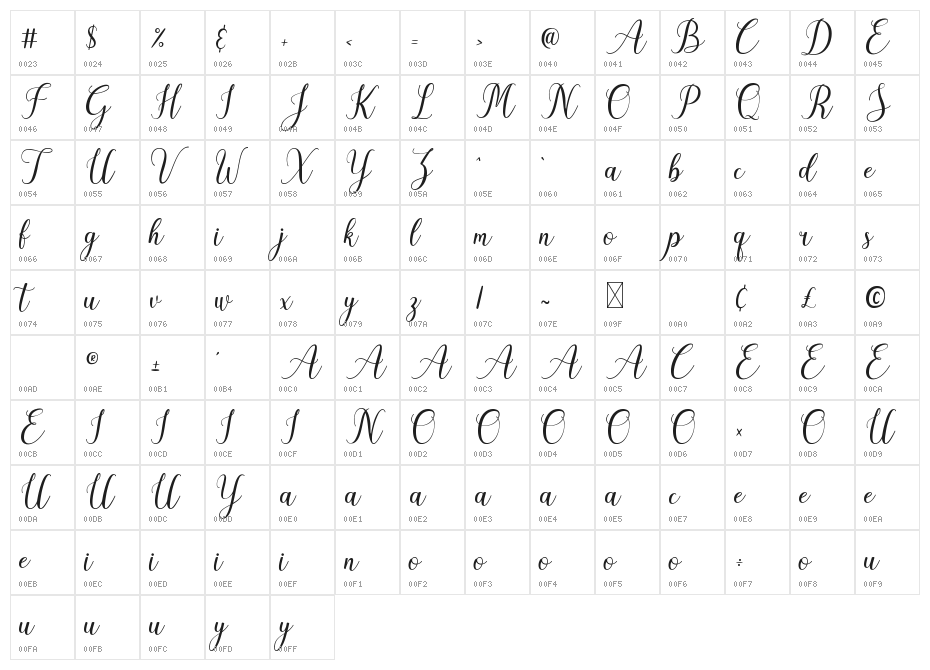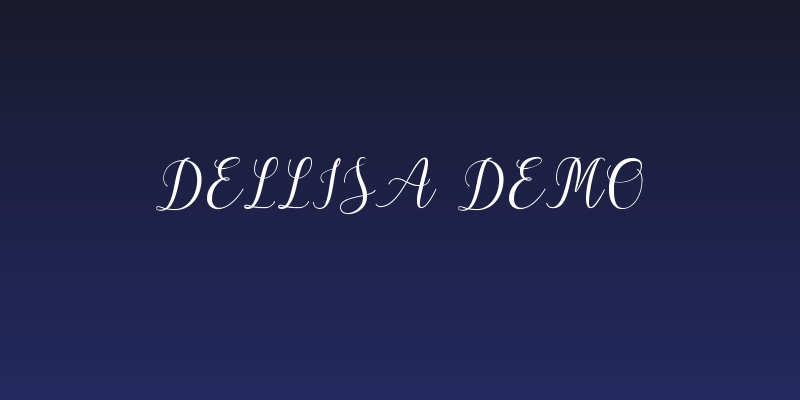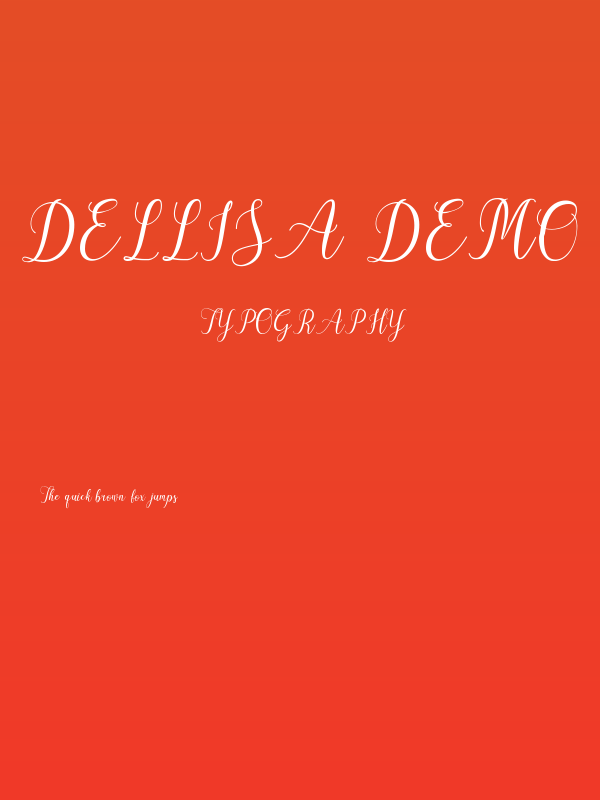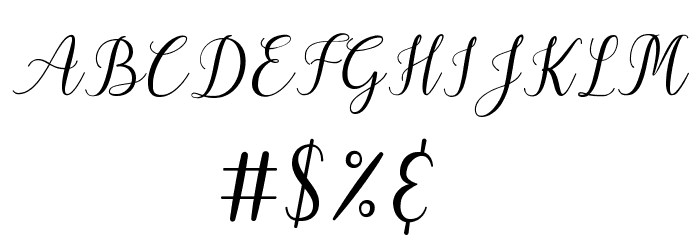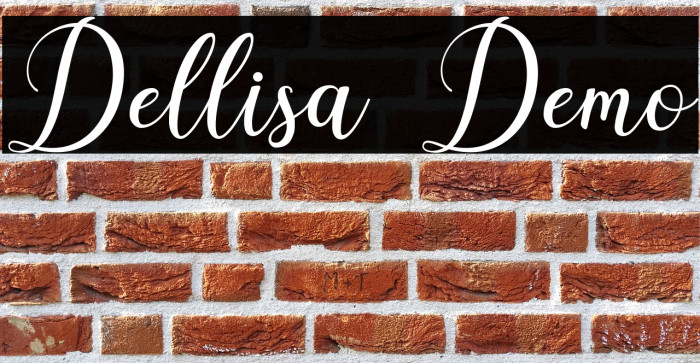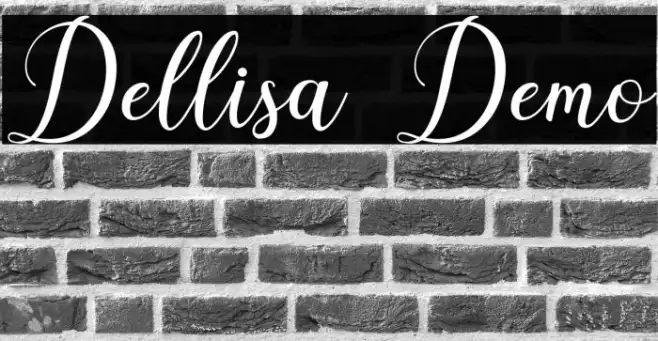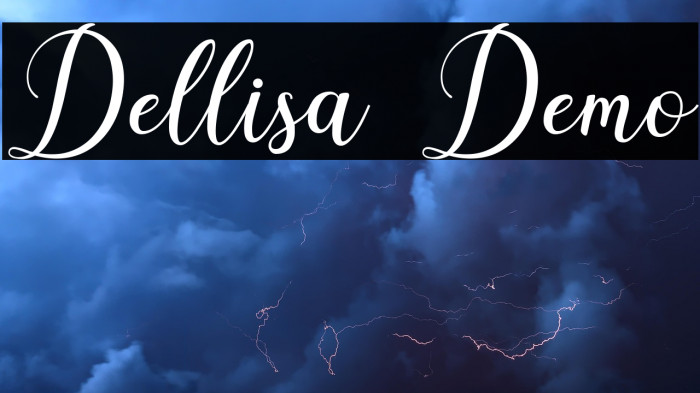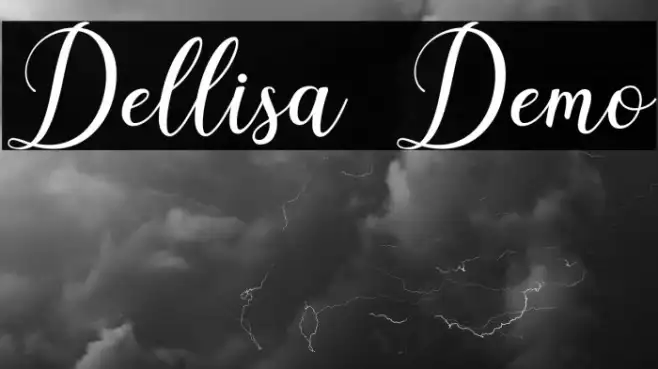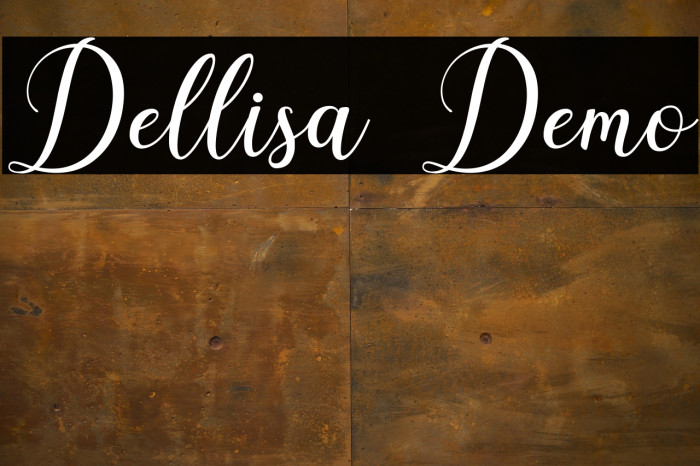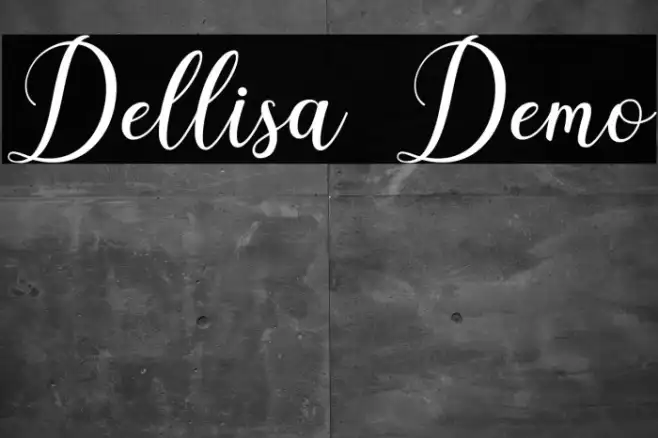
Dellisa Demo Font
Dellisa Demo Description
This elegant script font features a flowing, cursive style with graceful, sweeping curves and delicate strokes. The uppercase letters are ornate, with flourishes that add a touch of sophistication, while the lowercase letters maintain a consistent, fluid motion. The font exhibits a harmonious balance between thick and thin lines, contributing to its refined appearance. It is well-suited for formal invitations, branding, and any project that requires a touch of elegance and class. The characters are well-spaced, allowing for readability despite the intricate design.
| Proposed Projects | Ideal for wedding invitations, luxury branding, greeting cards, and elegant logo designs. |